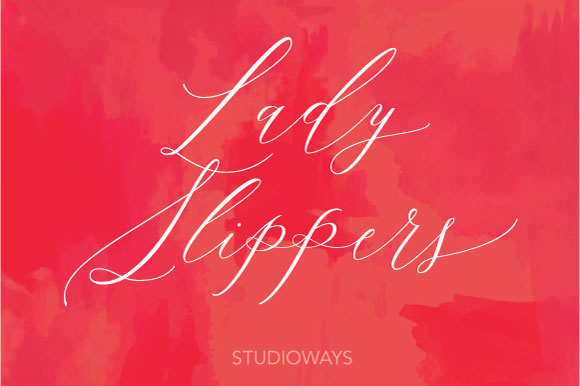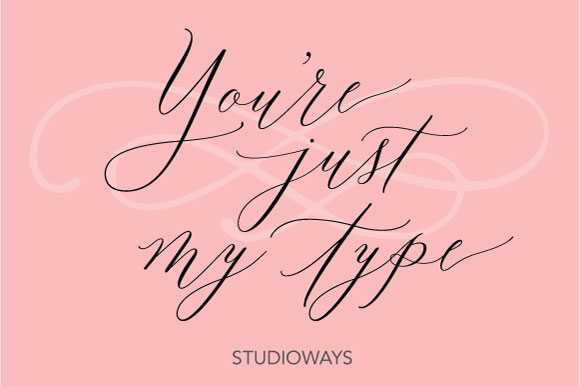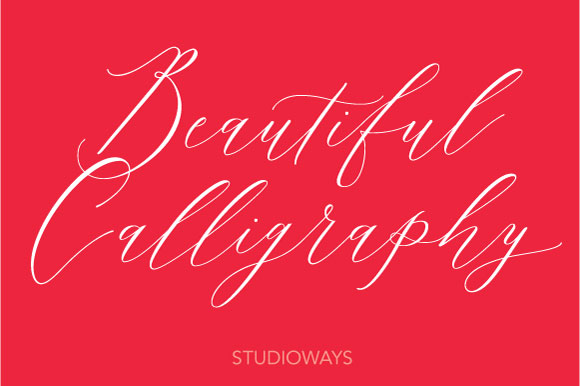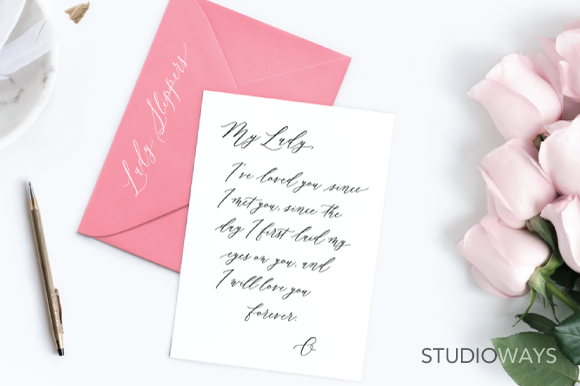
Lady Slippers Font
Create beautiful and seemingly handwritten calligraphy designs with Lady Slippers, and robust yet delicate script font. Modern and romantic, this is an amazingly diverse typeface to be used for a large number of designs.